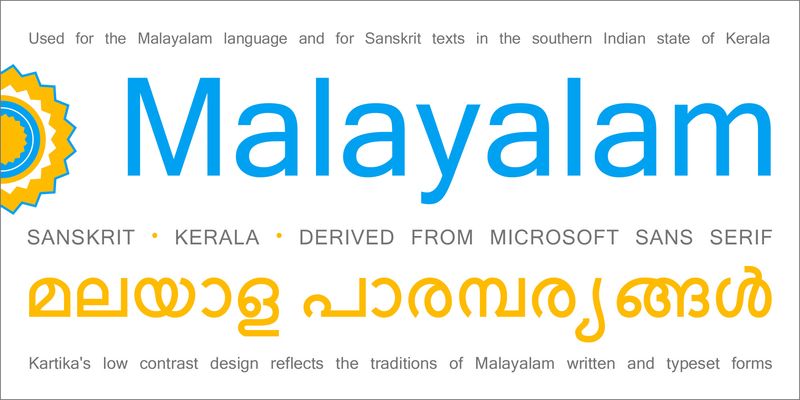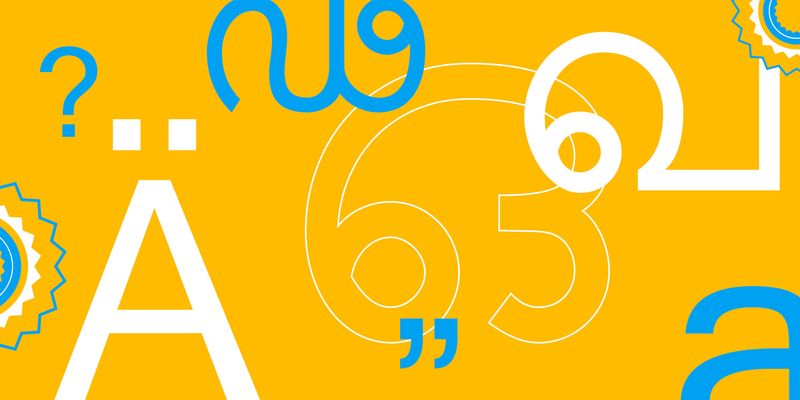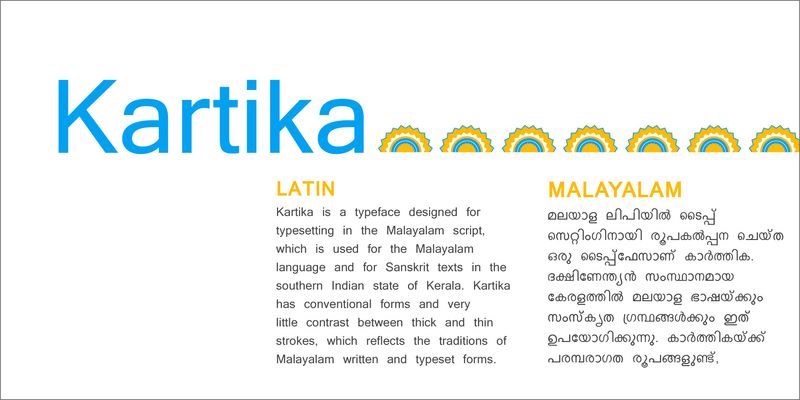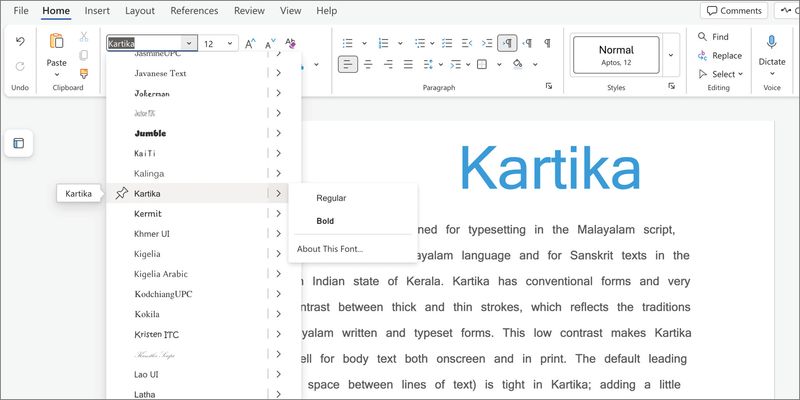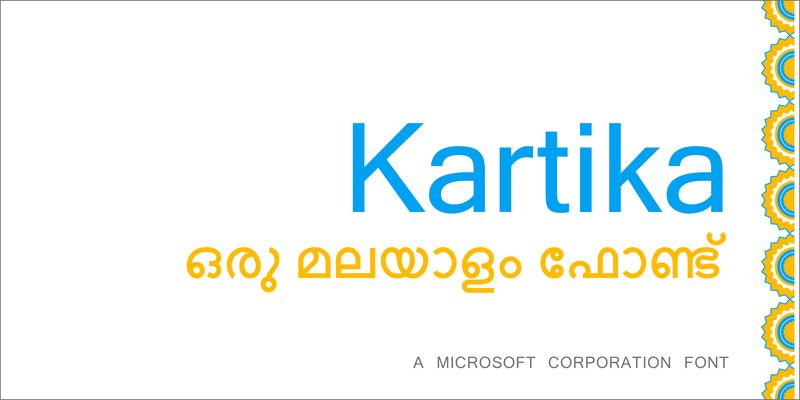
Kartika is a typeface designed for typesetting in the Mayalayam script, which is used for the Mayalayam language and for Sanskrit texts in the southern Indian state of Kerala. Kartika has conventional forms and very little contrast between thick and thin strokes, which reflects the traditions of Mayalayam written and typeset forms. This low contrast makes Kartika work well for body text both onscreen and in print. The default leading (vertical space between lines of text) is tight in Kartika; adding a little extra vertical space might be useful in long texts.
Kartika was designed for Microsoft by type director Raghunath Joshi and Vikram Gaikwad. It has two weights, Regular and Bold, and no italic styles. The font includes capitals and lowercase letters for the Latin alphabet, derived from the Microsoft Sans Serif typeface. The word space for the Latin letters is unusually wide.